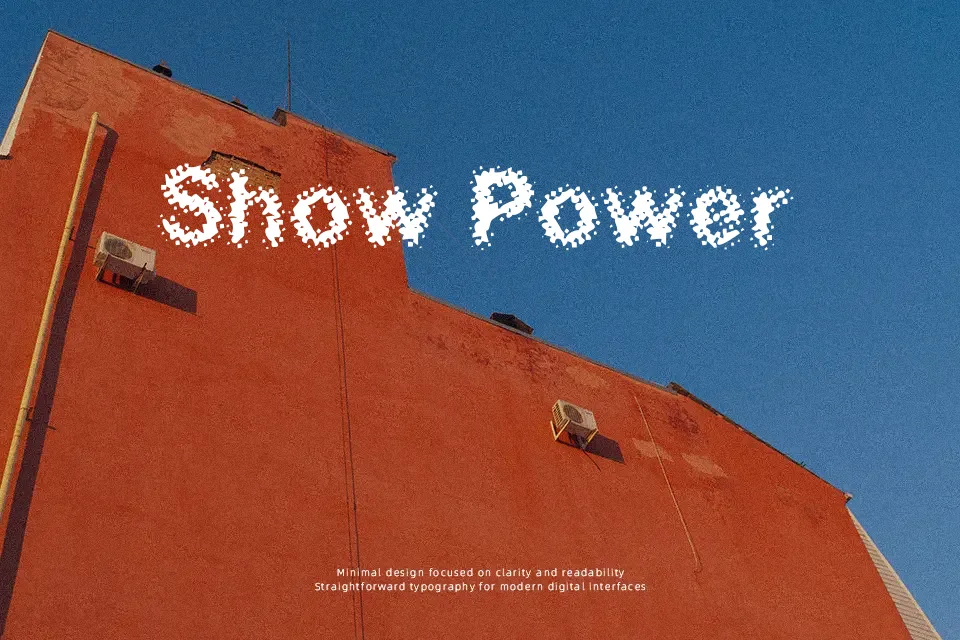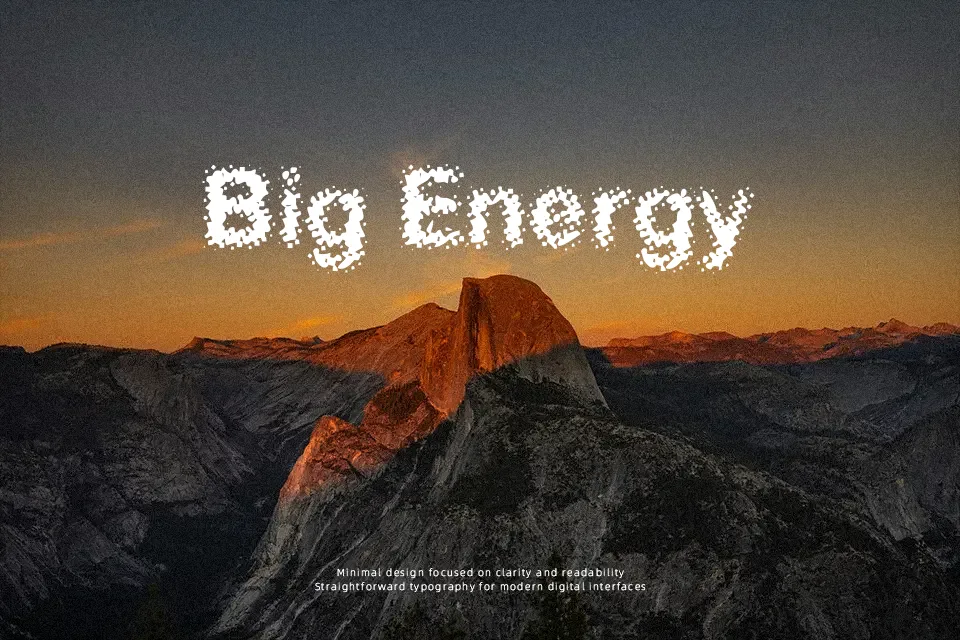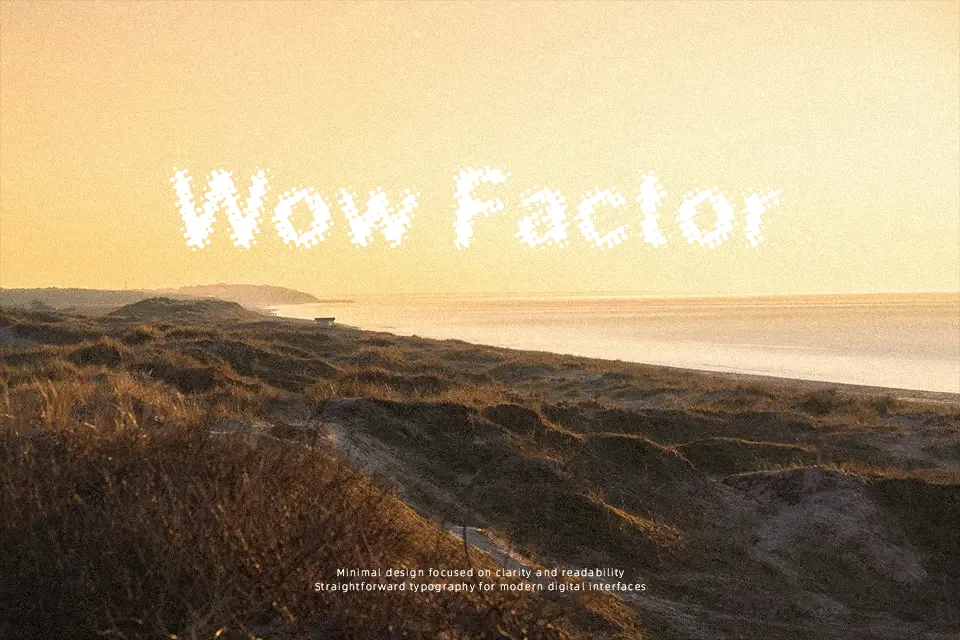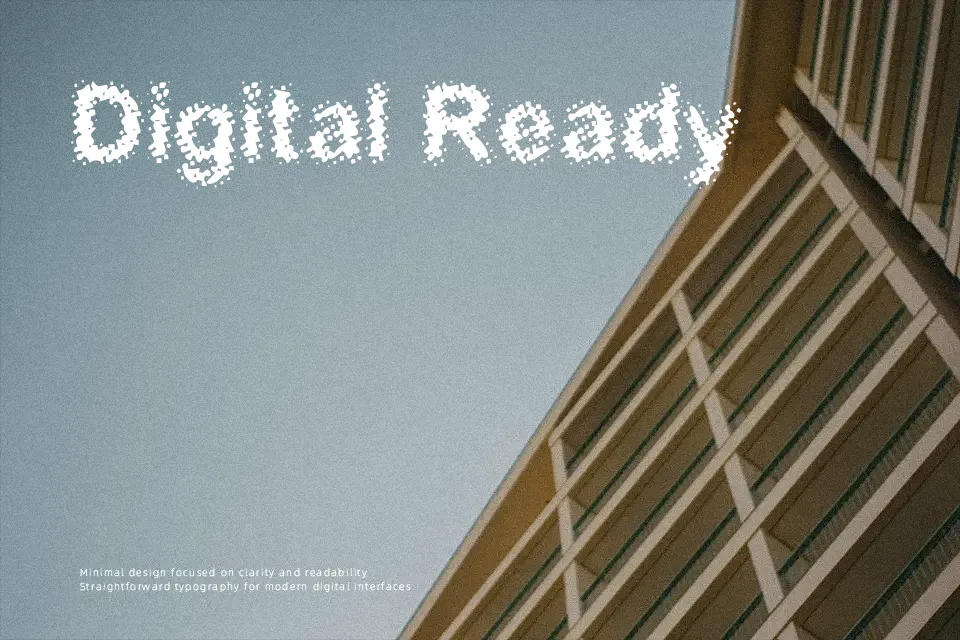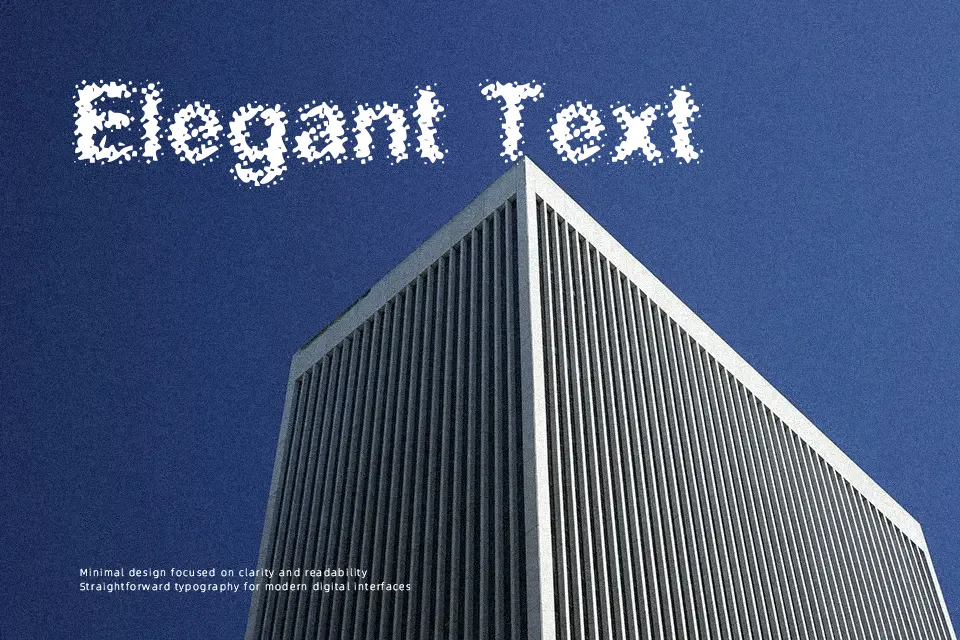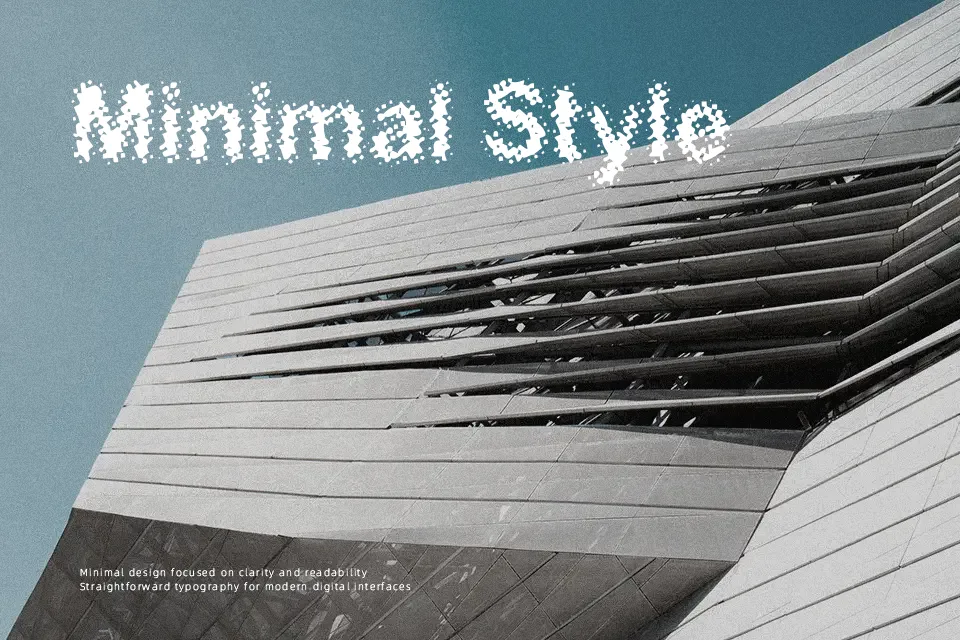
Acidic Font
Designed by Surface Type
The letterforms in Acidic Font lean hard into decay — uneven stroke edges, deliberately degraded contours, and a structure that feels like it was etched rather than drawn. It sits firmly in the display/decorative space, carrying a gritty, underground energy that reads instantly as rebellious or unsettling. That makes it a solid pick for horror-themed graphics, punk band merchandise, or alternative zine headers where conventional polish would actually undermine the message. The spacing is tight enough to feel intense without collapsing into illegibility at large sizes. That said, shrink it down and the distressed edges start eating into readability fast — small-size use is where this font genuinely struggles. It is also one-note by design; trying to soften it for broader audiences rarely works. Best treated as a headline-only tool with a clear tonal purpose.
– Horror event posters and Halloween promotion headers
– Punk or metal band merchandise and album artwork
– Underground zine or alternative magazine title treatments
– Tattoo studio branding and dark-themed social media visuals
– Body text or any copy below 24pt
– Corporate, wellness, or family-oriented branding
– Multilingual layouts requiring consistent glyph support
– Projects where legibility at small sizes is a requirement
Perfect for halloween, logo, and music, with a bold and decorative style.